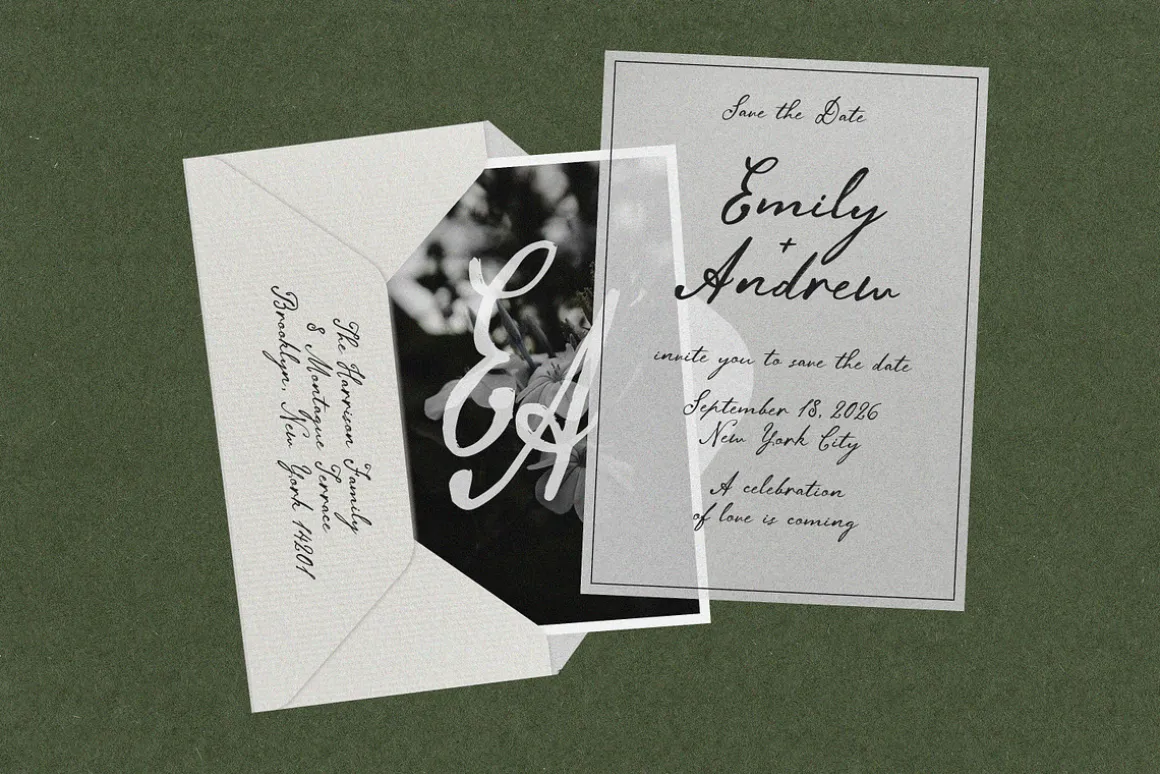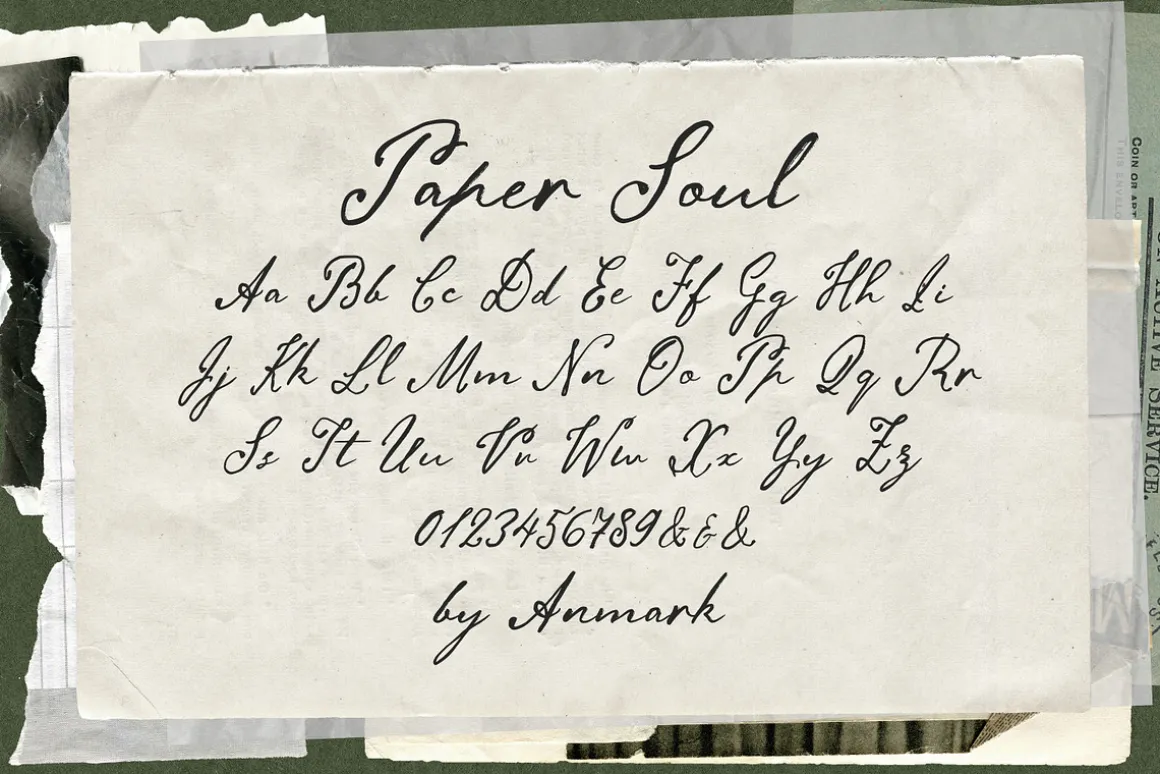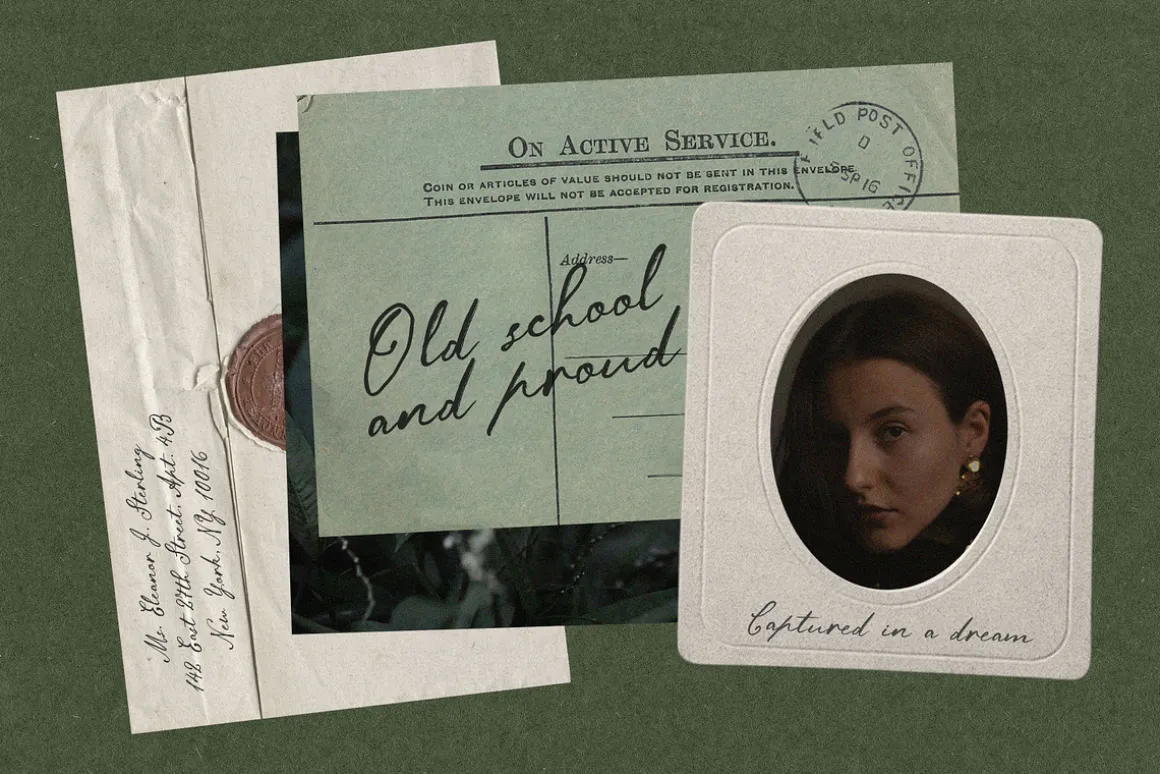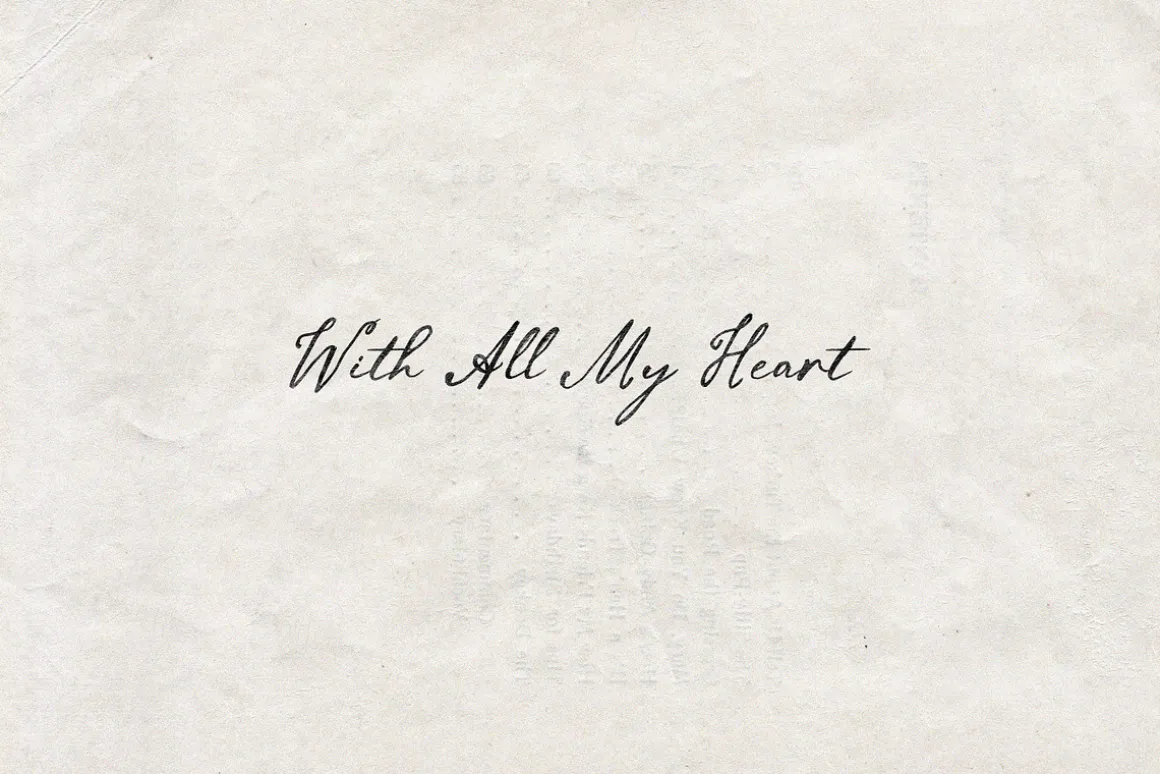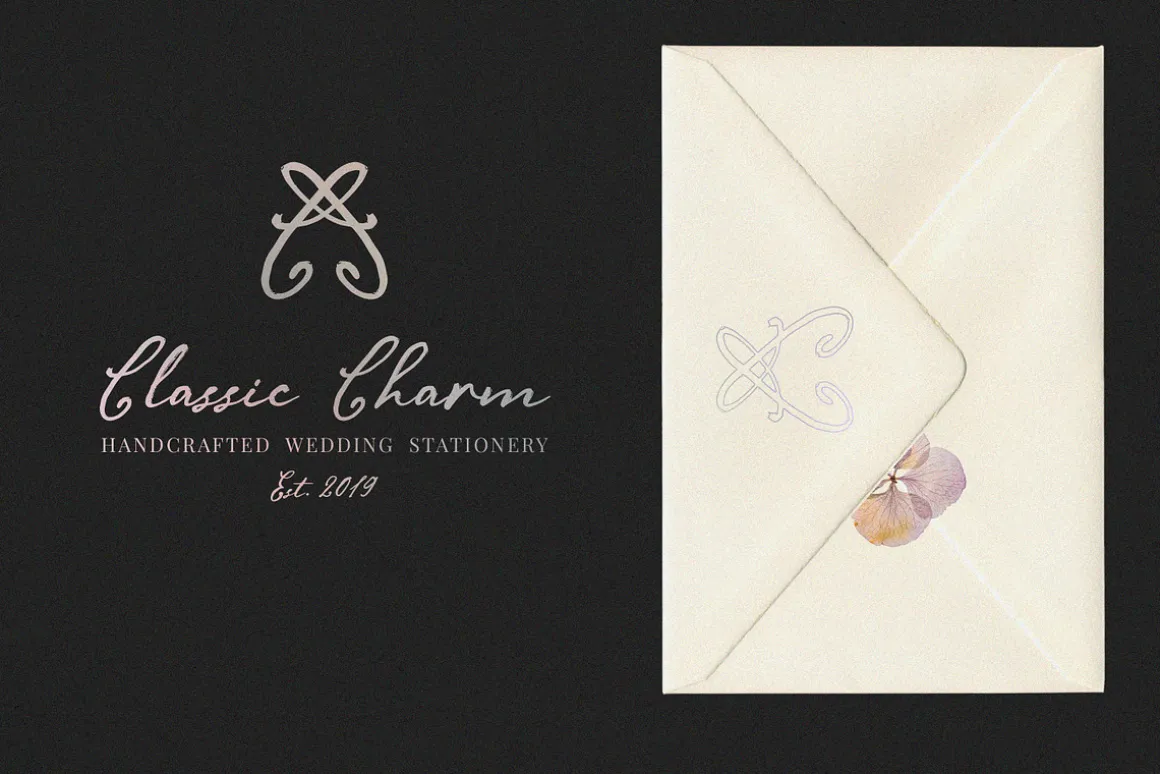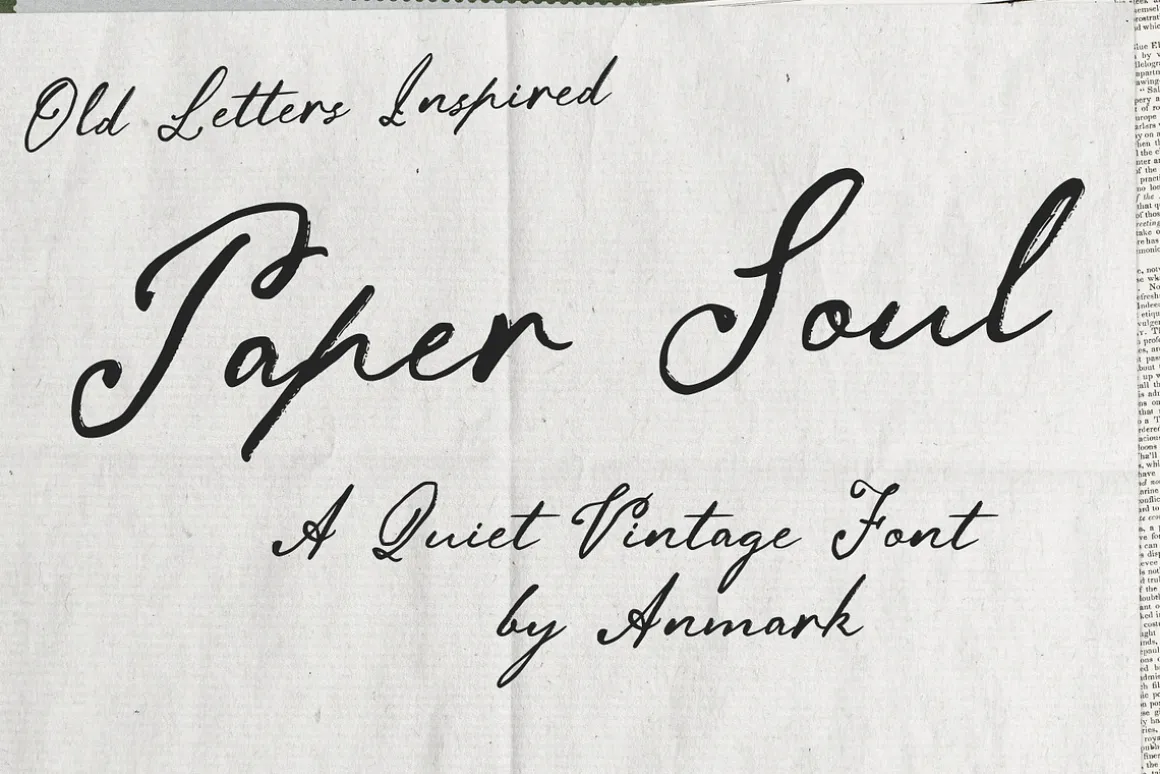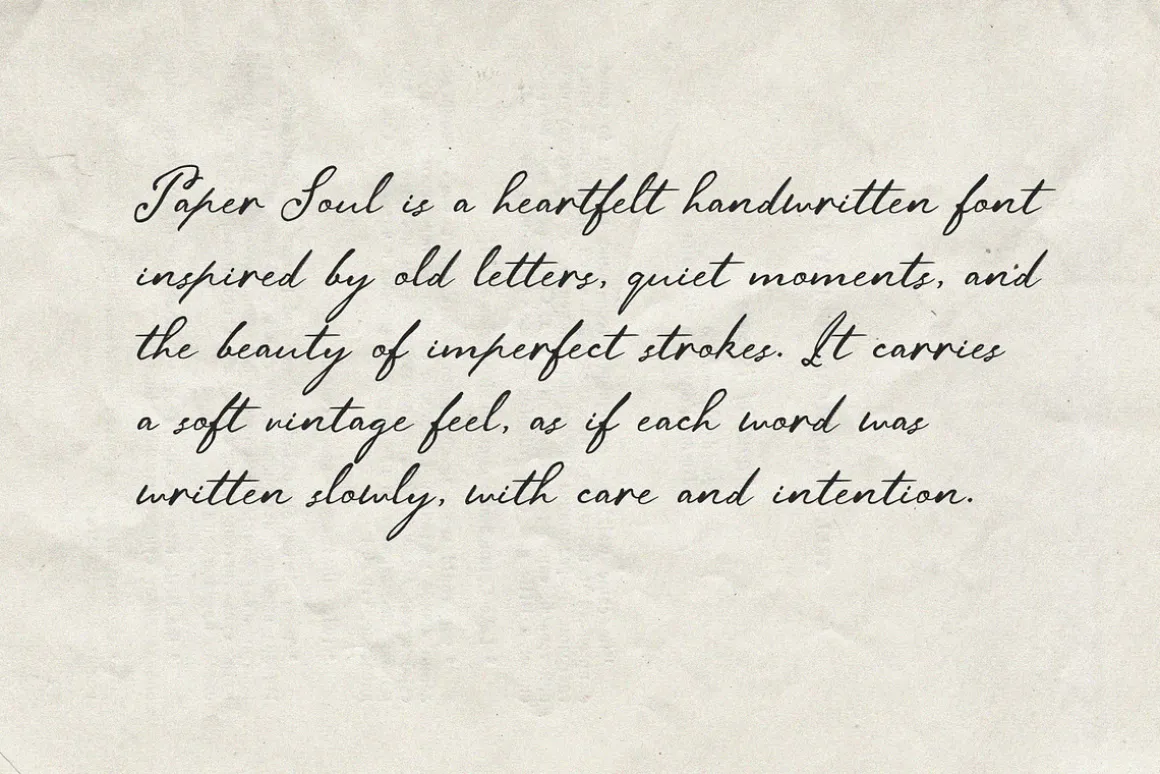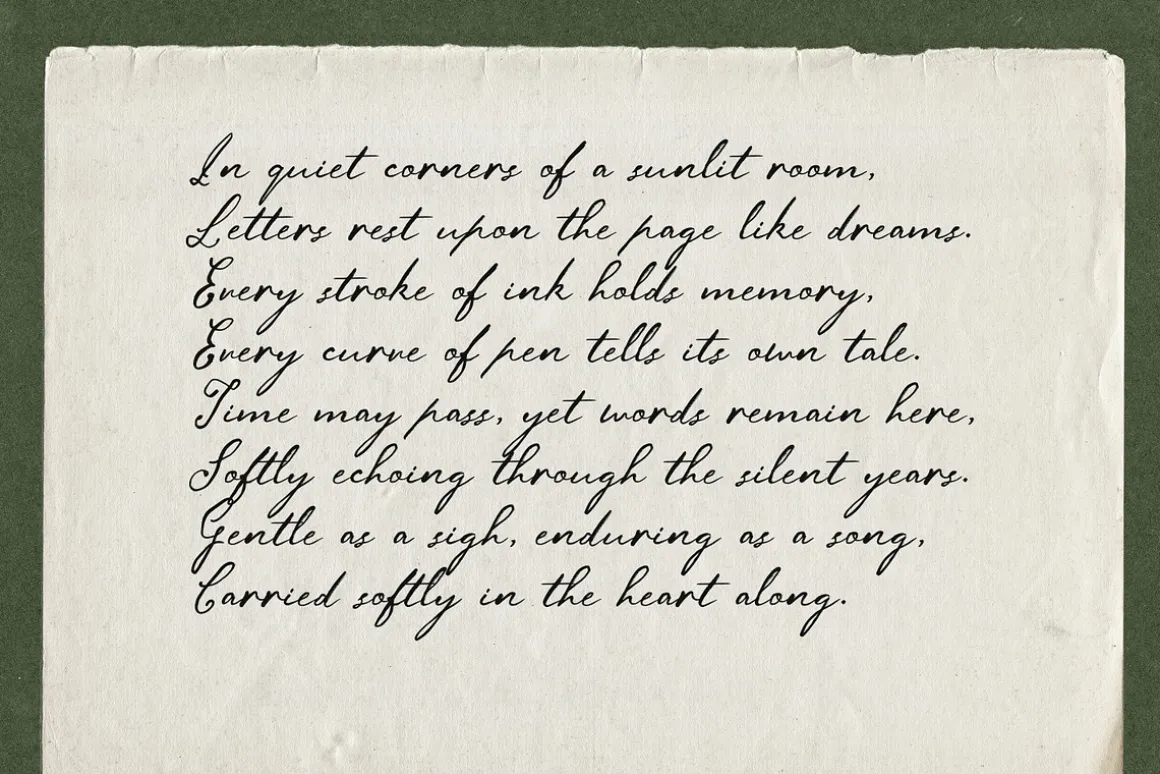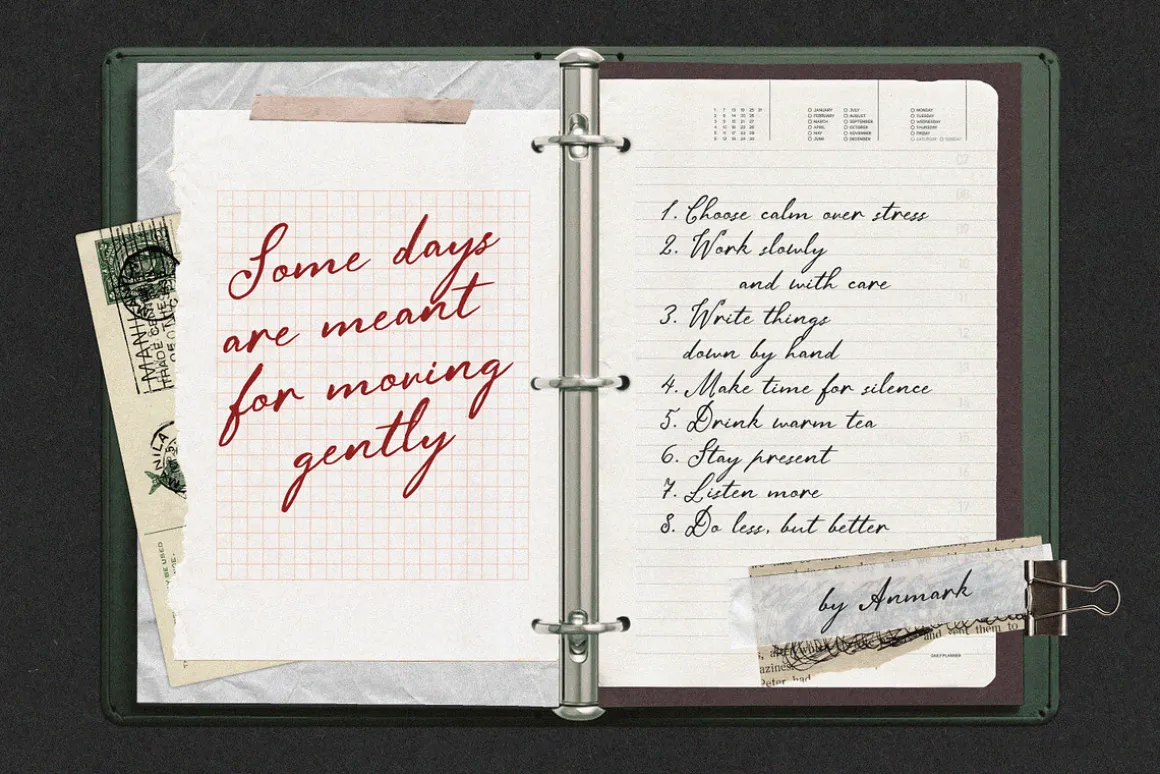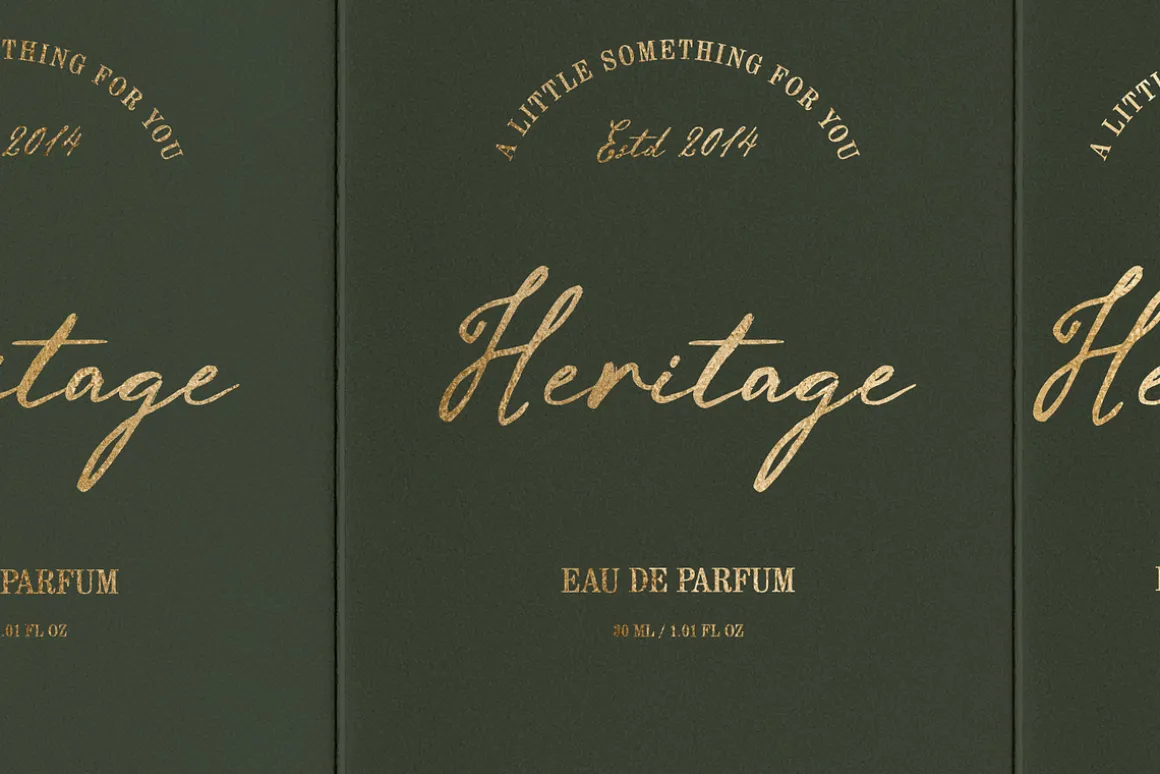
Paper Soul is a vintage-inspired handwritten script font, reminiscent of old letters and carefully penned notes. Its delicate, slightly irregular strokes create the feeling of ink on paper, giving every word a timeless, personal touch. With a moderate slant and elegant, elongated letterforms, this font brings warmth and sophistication to any design.
Perfect for wedding invitations, stationery, greeting cards, logos, monograms, quotes, and romantic or nostalgic projects, Paper Soul adds a quiet, thoughtful charm to your creative work. Its textured, hand-crafted appearance evokes the beauty of the past while remaining easy to read and versatile.